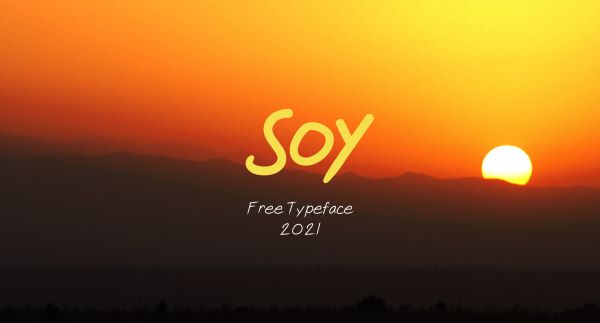
SOY Font
SOY font by Jepsoy Sarmiento is a free bold font released to mark the new year of 2021 — a gift to the design community with genuine typographic character. Available in both Regular and Bold weights, SOY brings a confident, clean energy to headlines, logos, posters, and any design context where the type needs to carry weight and stand on its own. Its compact, assured construction gives it a timeless quality that works equally well in contemporary and classic design contexts. Available free for personal use.